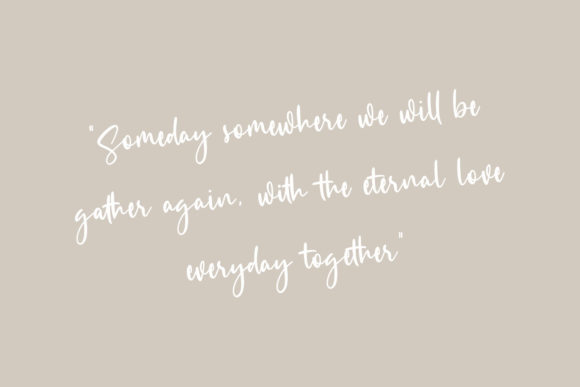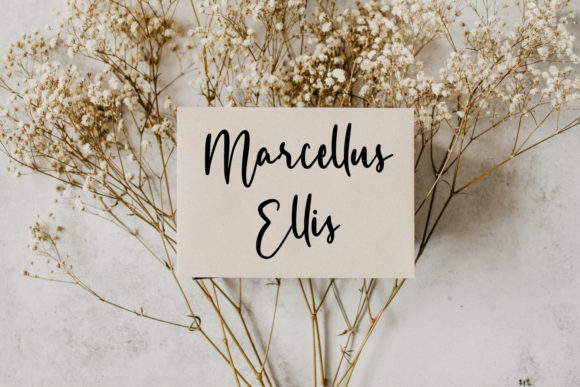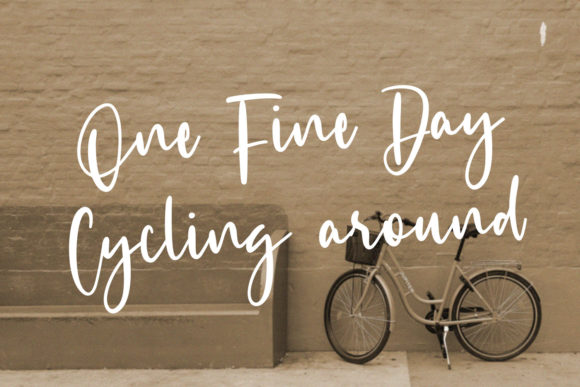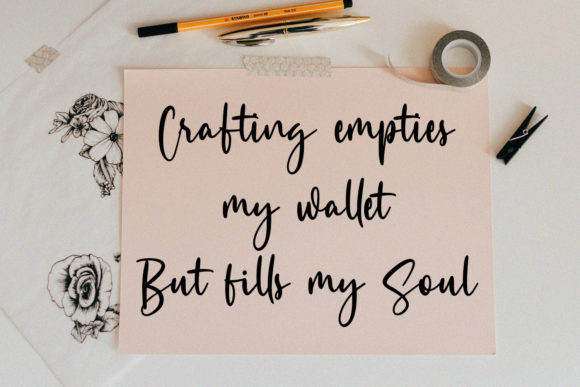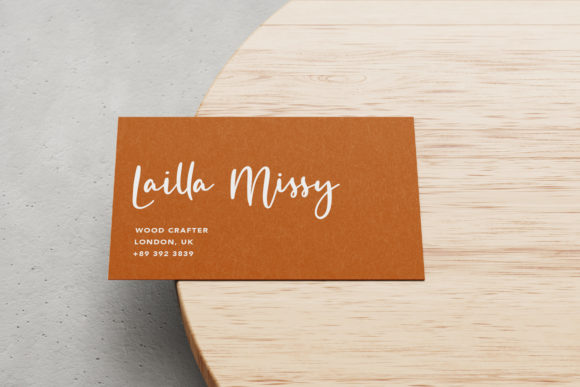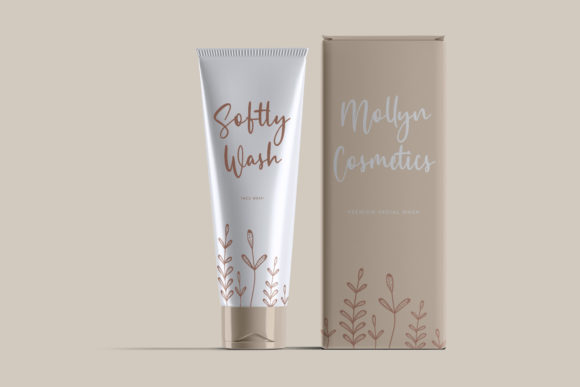
Introduction to Monesstry Font
As you sit at your desk, surrounded by half-finished projects and scattered ideas, you finally find the perfect combination of words to express your creative vision. But, just as you’re about to bring it to life, you’re stuck on the perfect font. The search begins, and hours pass as you scroll through design resources, searching for that elusive perfect match.
That’s where the Monesstry Font comes in – a magical script font carefully created with a touch of elegance. Whether you’re designing for Instagram or crafting calligraphy scripts for DIY projects, this high-quality font will elevate your creative idea into a stunning piece of art.
For designers, having access to a versatile font like Monesstry Font is invaluable. With its transparent background and free download option, you can experiment with your ideas without any limitations. And, with its unique design, you can give your projects a personal touch that sets them apart from the rest.
- Unique, modern design that sets it apart from other fonts in the market
Honest Review: Monesstry Font
As a designer, I’m always on the lookout for high-quality design resources that can elevate my creative projects. The Monesstry Font caught my eye, and I was excited to give it a try.
- ✨ High-quality design that’s perfect for modern branding and creative projects
I was impressed with the Monesstry Font’s versatility and flexibility. It’s perfect for a wide range of creative projects, from logos and branding to typography and graphics.
- ⚠️ Not as extensive a font family as some other options, which may limit its use in certain projects
Overall, I was impressed with the Monesstry Font. It’s a high-quality design resource that’s perfect for creative projects. While it may have some limitations, I think it’s a great option for designers who are looking for a modern, versatile font.
Monesstry Font: A High-Quality Design Resource
Introduction to Monesstry Font
The Monesstry Font is a unique and versatile font that can add a touch of elegance to any creative project. With its transparent background and high-quality design, it’s perfect for designers looking for a reliable design resource.
Great Vibes is a high-quality, elegant script font perfect for creative projects that require a touch of sophistication. It’s ideal for use in logos, invitations, and other design elements where a beautiful, handwritten feel is desired.
Compared to Monesstry Font, Great Vibes offers a more refined and polished appearance, making it suitable for formal or professional designs. It’s available for free download and can be used with a transparent background.